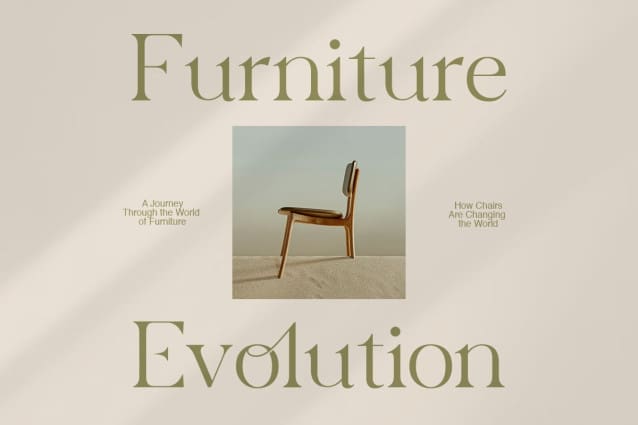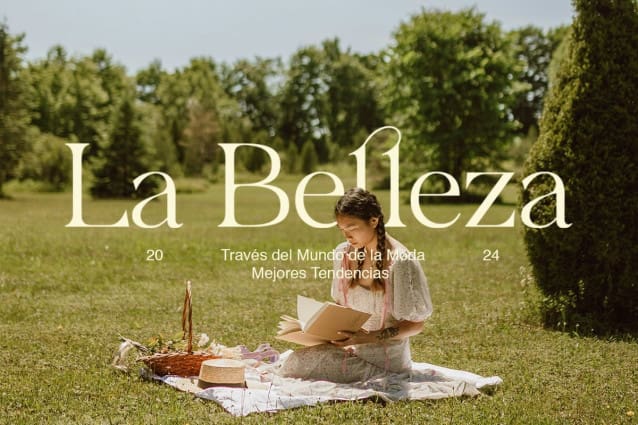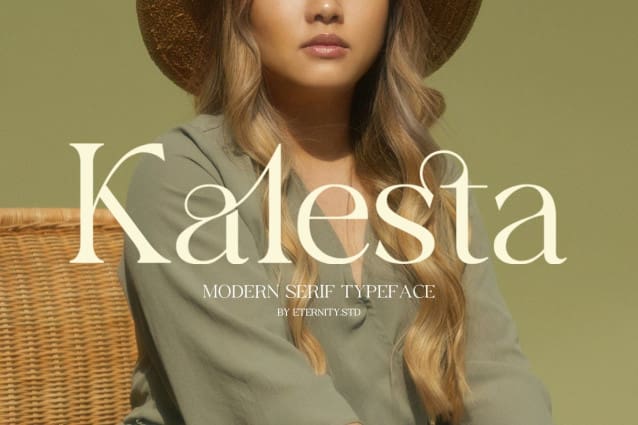
Kalesta Font
Kalesta Font – Modern Serif! This font isn’t just about style—it’s about making your designs luxury with elegance. With its sleek alternates and graceful ligatures, Kalesta is perfect for all your graphic design needs. Whether you’re crafting a logo, designing a poster, or creating a stunning website, this font delivers.